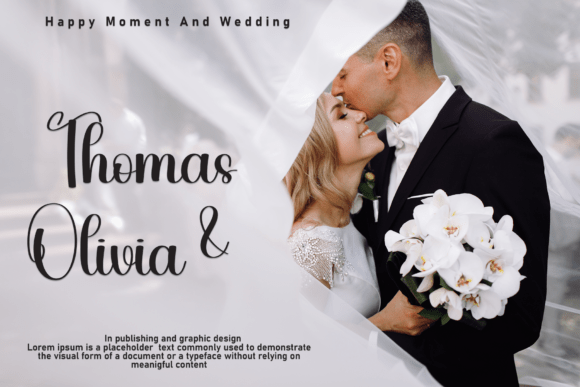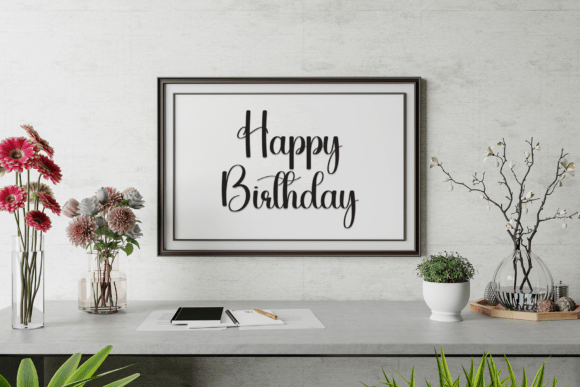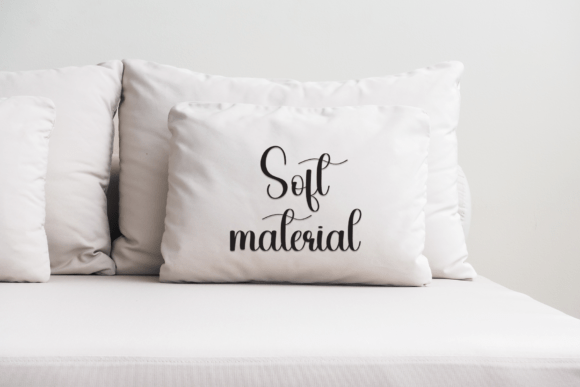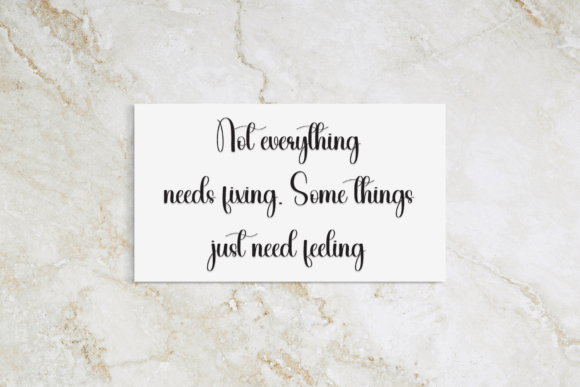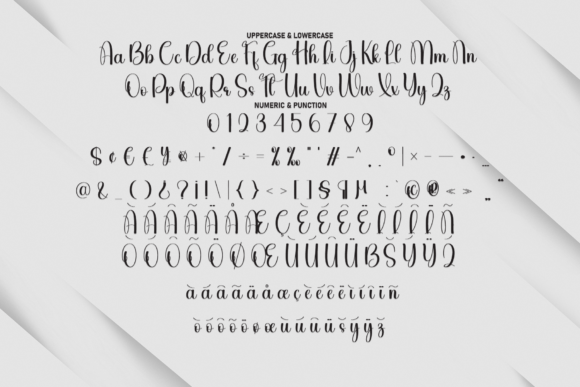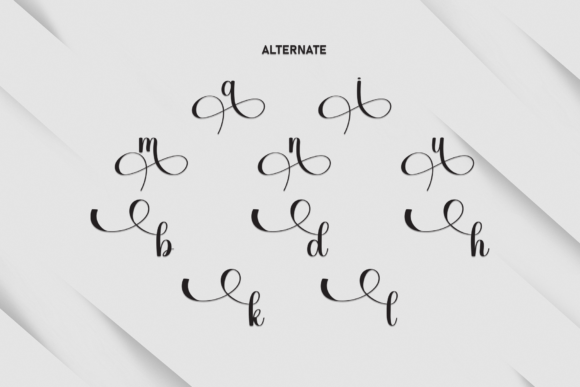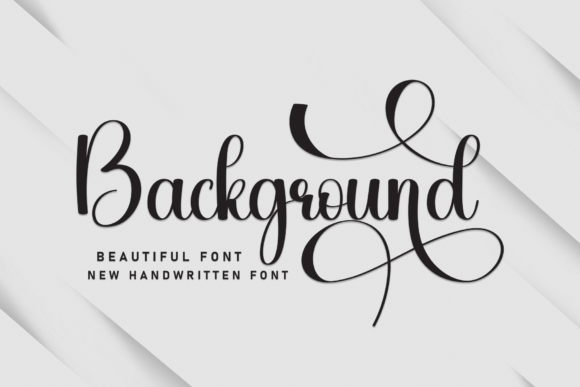
Introducing Background Font: A Breathtaking Handwritten Exhibition Font
Are you on the hunt for a font that can add a dash of warmth and cheerfulness to your designs? Look no further than Background Font, a beguiling and friendly handwritten exhibition font that is sure to captivate your audience. This strikingly designed font embodies the perfect harmony of sophistication and playful closeness, making it an ideal choice for a wide range of design projects.
The Perfect Blend of Elegance and Whimsy
Background Font is a masterfully crafted font that seamlessly blends elegance and whimsy. Its unique design ensures that it stands out from the crowd, making it perfect for designers and crafters who want to add a touch of personality to their work. Whether you’re creating wedding invites, greeting cards, or any other design that needs a sprinkle of merriment, Background Font is the perfect choice.
One of the best things about Background Font is its versatility. Its playful and charming design makes it suitable for a wide range of design projects, including:
- Wedding invites and stationery: Add a touch of romance and whimsy to your wedding designs with Background Font.
- Greeting cards: Create beautiful and eye-catching greeting cards for any occasion with this delightful font.
- Social media graphics: Add a dash of personality to your social media graphics with Background Font.
- Logos and branding: Use Background Font to create a unique and memorable logo for your brand.
- Packaging design: Add a touch of whimsy to your packaging design with this charming font.
What Makes Background Font Special?
So, what makes Background Font so special? Here are just a few features that set it apart:
- Handwritten design: Background Font boasts a beautiful handwritten design that exudes warmth and personality.
- Playful and charming: This font is guaranteed to add a dash of whimsy and charm to your designs.
- Sophisticated and elegant: Despite its playful nature, Background Font is also sophisticated and elegant, making it perfect for a wide range of design projects.
- Easy to read: The font is clear and easy to read, making it perfect for body text and headings.
Tips for Using Background Font
Here are a few tips for getting the most out of Background Font:
- Pair it with a bold font: Background Font pairs perfectly with bold fonts, creating a striking contrast that’s sure to grab attention.
- Use it for headings: This font is perfect for headings and titles, adding a touch of whimsy and personality to your designs.
- Experiment with colors: Background Font looks great in a range of colors, so don’t be afraid to experiment and find the perfect hue for your design.
In conclusion, Background Font is a breathtaking handwritten exhibition font that’s sure to add a dash of warmth and cheerfulness to your designs. Its unique blend of sophistication and playful closeness makes it perfect for a wide range of design projects, from wedding invites and greeting cards to social media graphics and logos. With its endless design possibilities and easy-to-use design, Background Font is a must-have for designers and crafters looking to add a touch of personality to their work.